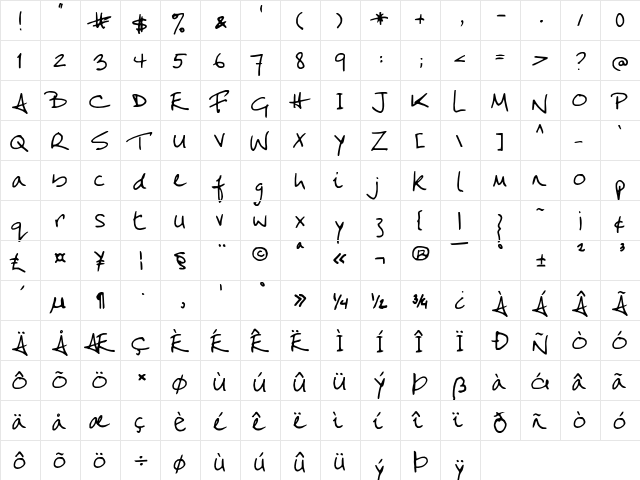
FG Simon Regular
Design Context for FG Simon Typeface
FG Simon is a composed and adaptable typeface that performs quietly and consistently across a wide range of design contexts.